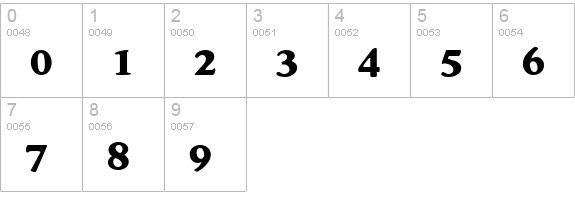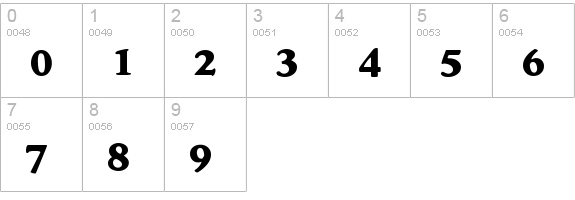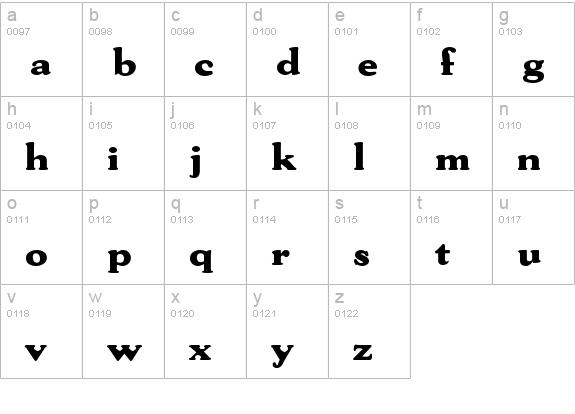
The Honorius font is a versatile and elegant typeface that exudes sophistication and charm. With its clean lines and classic design, this font is perfect for a wide range of projects, from formal invitations to professional documents. The timeless elegance of Honorius makes it a popular choice for designers looking to add a touch of class to their work. What sets Honorius apart is that it is not only stylish and refined, but it is also completely free to download. That's right - you can access this stunning font at no cost on FontsMarket.com. Whether you're a seasoned designer or just starting out, Honorius is a valuable addition to your font collection. Download it today and elevate your designs with this exquisite typeface.